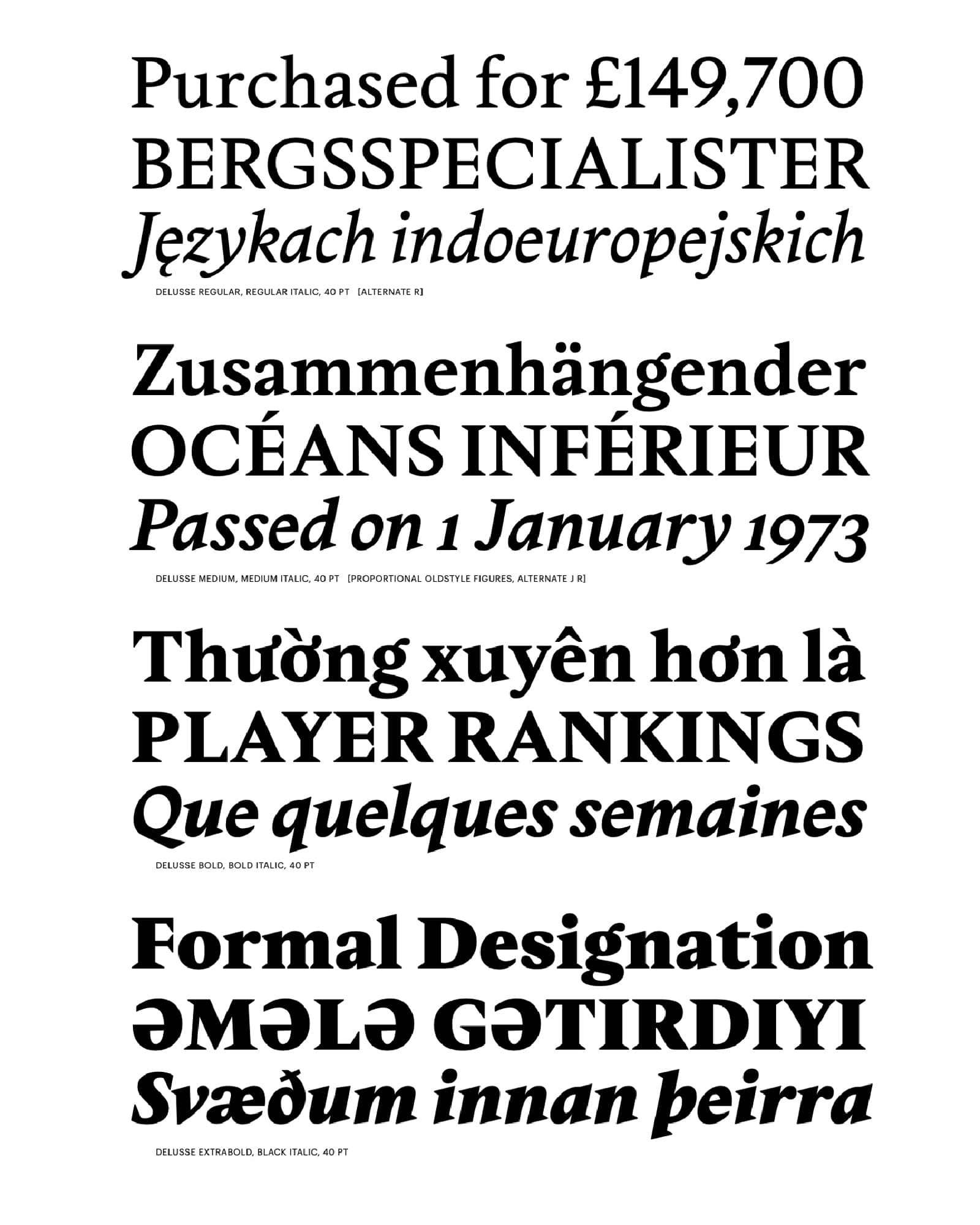
Q&A Thomas Bouillet
Biography Thomas Bouillet is a French designer with a classical yet contemporary approach to typography. A 2020 graduate of the Type & Media program at KABK in The Hague (NL), Thomas was previously educated in design at the ÉSAD in Amiens (FR), and L’École Estienne in Paris (FR). Thomas has interned with a number of foundries and type designers including PampaType, Chevalvert, and Xavier Dupré. After spending time as an intern with Commercial Type in 2018, he returned as a staff designer at the end of 2020.
Interview
What drives you to create new typefaces?
Thomas Bouillet When I first began studying typography, my approach was what I would describe as more “personal”: I wanted to explore, discover forms that had never been made before, develop my own style, and I wasn’t really thinking about practical context or use.
Since joining Commercial Type in 2020, my motivations have shifted quite a bit. Today, I’m driven by the idea of understanding and anticipating designers’ needs in order to create typefaces that are widely usable and enduring. What motivates me now is less about self-expression and more about designing the right tools, conceived for a specific context, yet capable of existing beyond it.
What is your ratio of self-initiated typefaces vs. typeface for clients?
Thomas Bouillet Because I work at a digital type foundry, I’ve had to adapt to the way the studio operates. We have the freedom to pursue our own projects, but clients also come to us with custom typeface commissions, which naturally take priority. As a result, the balance between the two tends to shift depending on the period.
What I find particularly interesting, though, is that custom work can sometimes lead to self-initiated projects. The transition often happens quite organically: we become intrigued by an initial idea that, through further development, refinement, and differentiation, can evolve into something more personal and eventually find its place in the catalogue.
Are you rather one of those who draw or redraw type classics, or those who seek to totally invent new forms?
Thomas Bouillet For my self-initiated projects, I tend to work from historical sources and existing typefaces, whether recent or centuries old. Some of these projects take the form of revivals, while others are looser reinterpretations of existing designs. When digitizing a source, the possibilities are virtually endless and every decision opens up new directions, so it ultimately falls to the designer to define a clear vision of what the project can become.
In my own work, I enjoy identifying the characteristics that can give each project its particular voice: amplifying certain forms, altering proportions, adjusting the x-height, and so on. The goal is not simply to reproduce the original, but to bring something new to it.
What I find most compelling about this process is that it requires both an understanding of how a typeface was conceived by its original designer and a willingness to reinterpret it for the present. It is about finding ways to make these designs relevant again, more closely aligned with contemporary needs and contexts of use while remaining faithful to the spirit that made them distinctive in the first place.
Do you think that it's more important for student to experiment and go off the usual roads of type design, or to learn by following the historical shapes of the type design world.
Thomas Bouillet I think it’s important to experiment while at school, to learn how to create new and distinctive forms and to push the boundaries of what is possible. But it seems just as important that education provides a solid historical foundation and a meaningful connection to the realities of practice.
Typography has a rich history, and it remains an applied discipline: one that serves a function, circulates in the world, and is ultimately meant to be used by others. Personally, I find it valuable to embrace that perspective from the outset: to think not only about designing for oneself or for the discipline itself, but also for a specific context and for the people who will eventually engage with and use the work.
What’s the balance between hands‑on craft and digital tools during type design education?
‌Thomas Bouillet In my view, both approaches should coexist within a design education. I studied at Amiens, Estienne, and TypeMedia, and I learned as much from traditional, hands-on techniques as I did from digital tools. I still practice engraving from time to time, but today I work primarily with software and rarely begin a project with drawings on paper.
In my own practice, calligraphy and engraving have been less about discovering forms than about understanding proportion. They taught me how to recognize and establish balance within a typeface system, and that knowledge continues to inform my work today. Even when designing entirely in a digital environment, those foundations remain invaluable.
“At the same time, typography should not be seen in isolation. What matters most is its relationship to the broader design process.”
– Thomas Bouillet
Should type design be taught as a specialized subject or integrated into the core curriculum?
Thomas Bouillet In my view, typography should be an essential part of any graphic design education. It remains one of the discipline’s fundamental tools, shaping how designers think about composition, balance, and visual communication.
Learning typography is much like learning to draw: it provides a deep understanding of a tool, allowing you to use it more consciously and, eventually, to move beyond its conventions. It also encourages a perspective that goes beyond aesthetics, considering how typefaces communicate, how they are structured, and the meanings they carry.
At the same time, typography should not be seen in isolation. What matters most is its relationship to the broader design process. Graphic designers benefit from typographic knowledge, just as type design students can gain valuable insights from graphic design and design theory.
Should formal education be required to become a typeface designer, or is self‑learning sufficient?
‌Thomas Bouillet As in any field, there are self-taught practitioners, and typography is no exception. What I find particularly interesting is that when type designers come to the discipline from other backgrounds, they bring with them different perspectives and ways of thinking.
For example, designers who transition into type design often make significant contributions to contemporary typography because they approach it through the lens of use. Their experience with graphic design gives them a keen understanding of context, application, and the practical realities of how type functions in the world. That perspective can enrich the discipline and help to shape its ongoing evolution.
Do you remember when you decided to pursue your career in design? What made you choose this?
‌Thomas Bouillet I first became interested in lettering while studying visual communication in vocational highschool, without really knowing where it could lead. Looking back, that interest was probably rooted in my early experience with graffiti, which had already made me attentive to letterforms and drawing.
I later joined the Typography and Graphic Design program at Estienne, where I discovered the rigor of typography. At the time, I was more attracted to lettering than to the idea of designing complex typographic systems with their own rules and history.
It was during my graphic design studies in Amiens that things clicked. As I began creating my own typefaces for my graphic design projects, I realized that typography was not just a discipline in itself, but a practical tool embedded in real-world contexts. Amiens allowed me to connect graphic design and type design, and to understand how closely the two practices inform one another.
“In my own practice, calligraphy and engraving have been less about discovering forms than about understanding proportion.”
– Thomas Bouillet
When you started, who were the teachers, mentors or professionals who had the most impact on you?
‌Thomas Bouillet Several people have played an important role in my development as a type designer. Today, it is clear to me that Franck Jalleau had a profound influence on the way I think about type design. As a Maître d’Art, he embodied a deep sense of craftsmanship and taught us both rigor and a strong, uncompromising vision of the discipline. His approach helped me develop a critical eye and the confidence to form my own opinions about type.
Patrick Paleta was equally important in helping me understand the relationship between typography and graphic design. He encouraged me to embrace my typographic interests, supported my graduation project, and played a key role in helping me access professional opportunities. Together with Barbara Denis, he helped create the conditions that allowed me to take my first steps in the field.
Christian Schwartz and Paul Barnes of Commercial Type have long been important references for me. I admired their ability to create typefaces that are both effective and enduring. Joining the foundry later on felt like a natural continuation of that admiration, and I remain grateful for the trust they placed in me by welcoming me into the team.